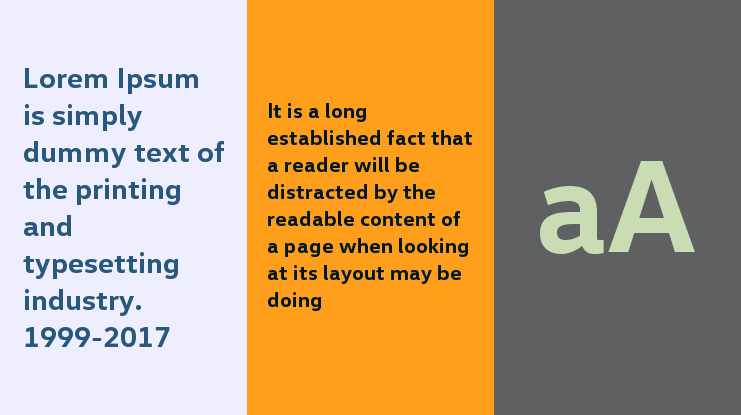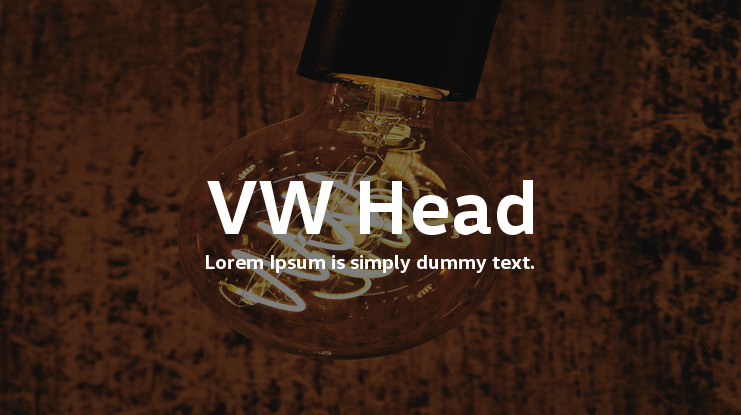
VW Head Font Family
Hannes von Doehren, Livius Dietzel
Volkswagen is a big and famous car company. Among them is the typeface of the Volkswagen brand, with the stylized VW.
Volkswagen used these fonts in Golf and other car models.